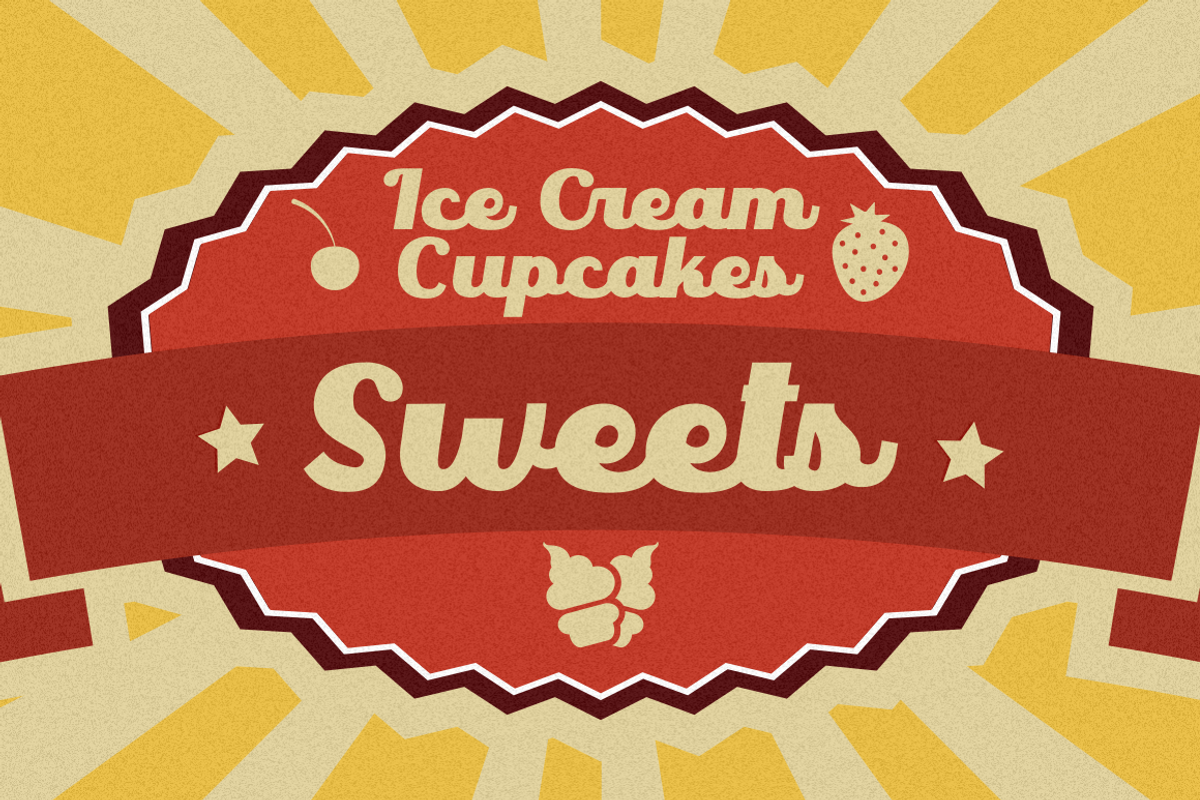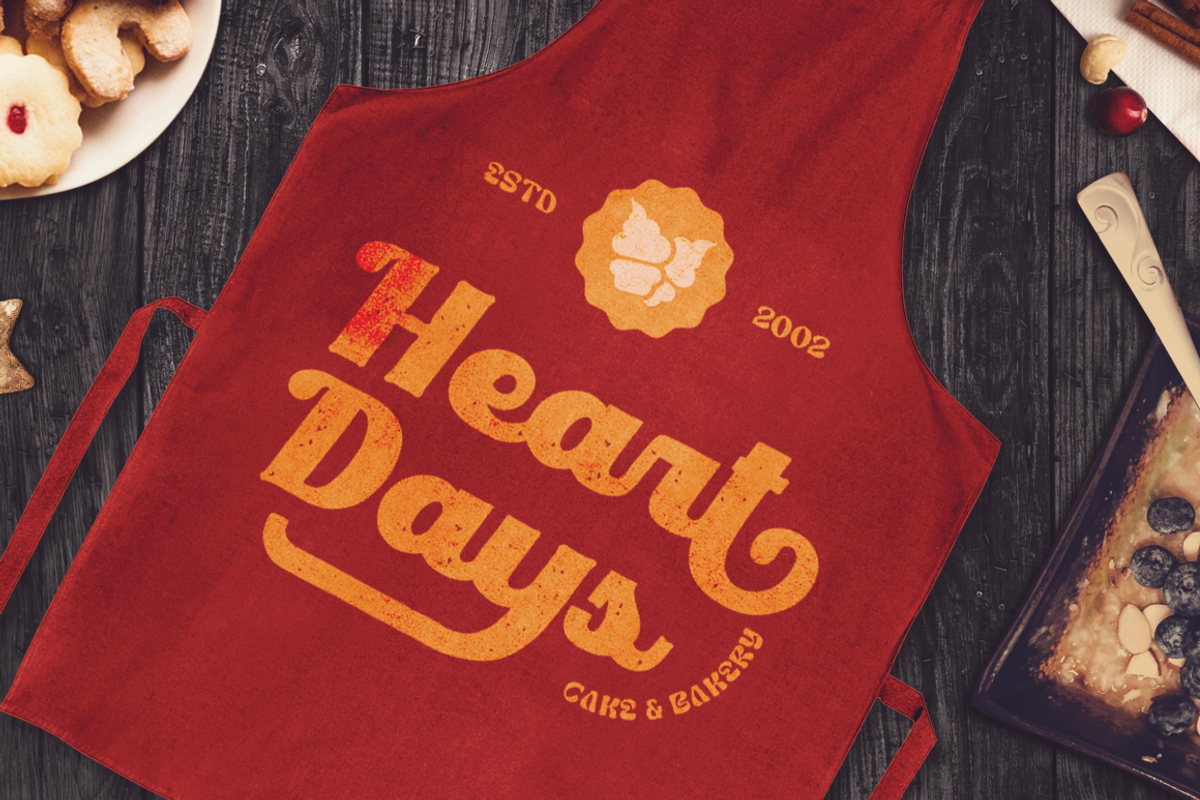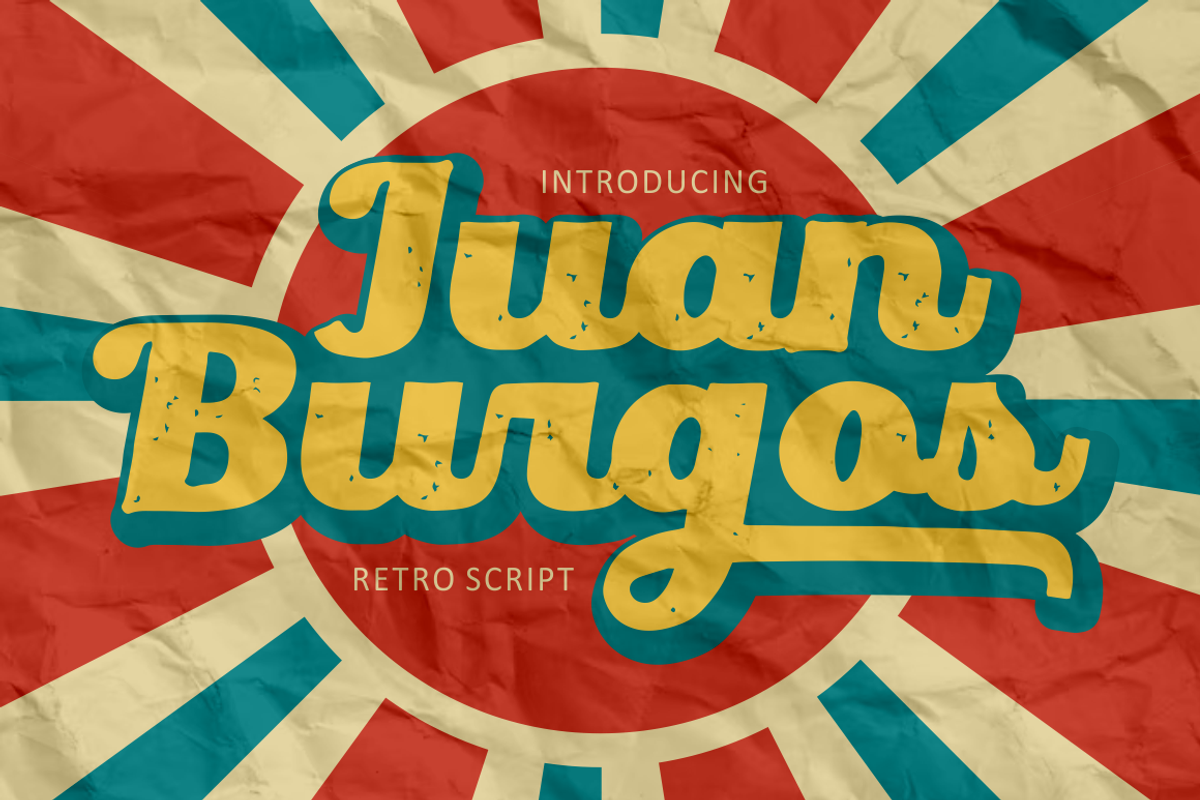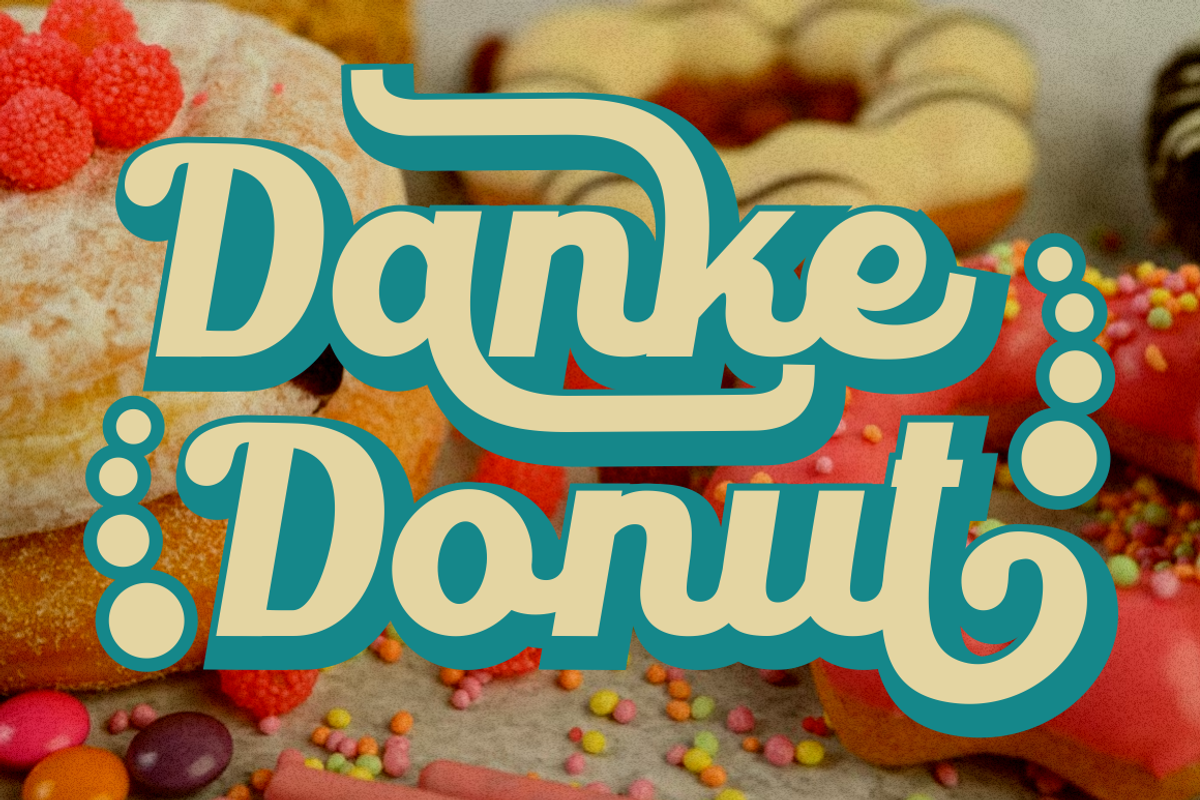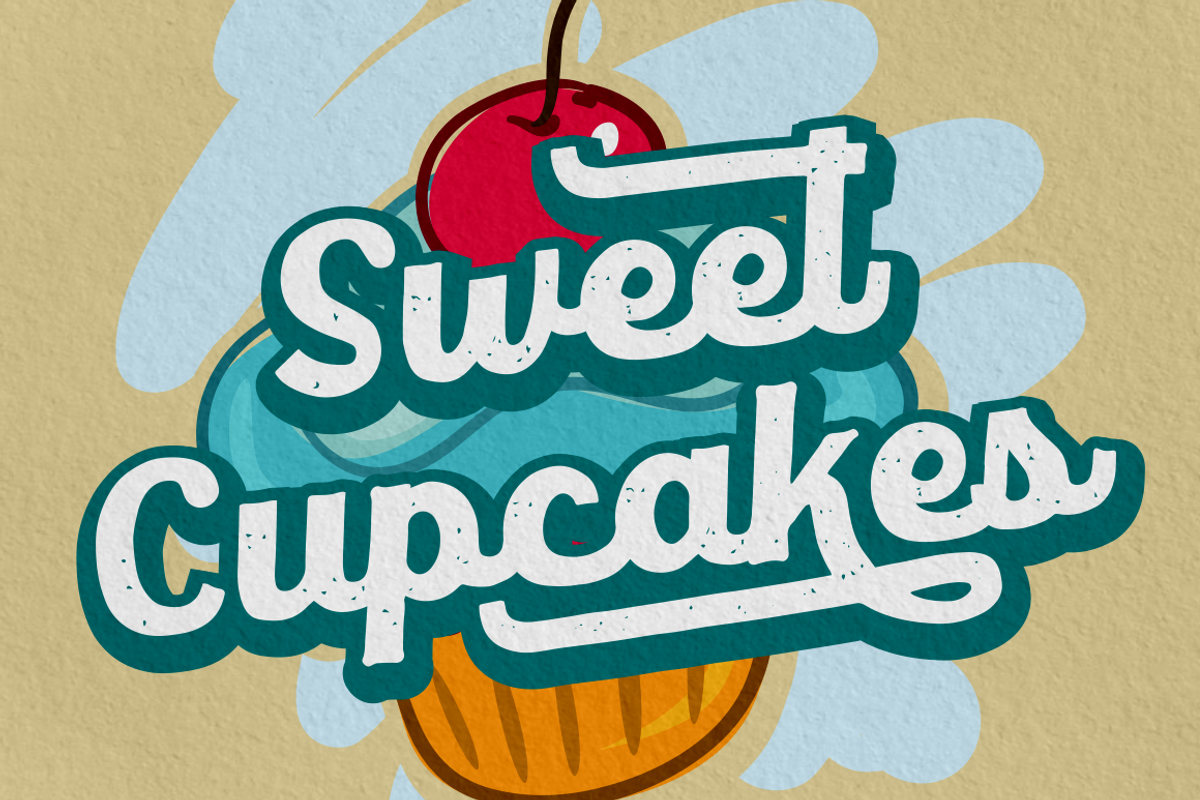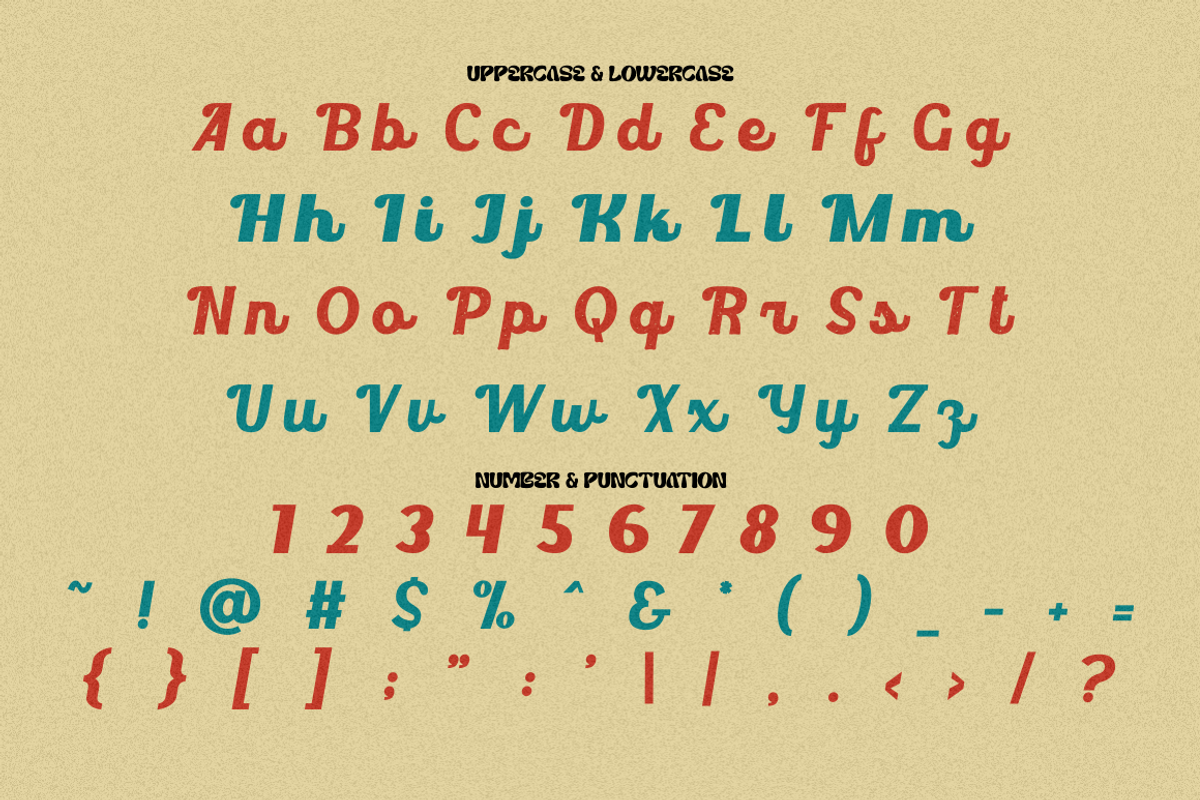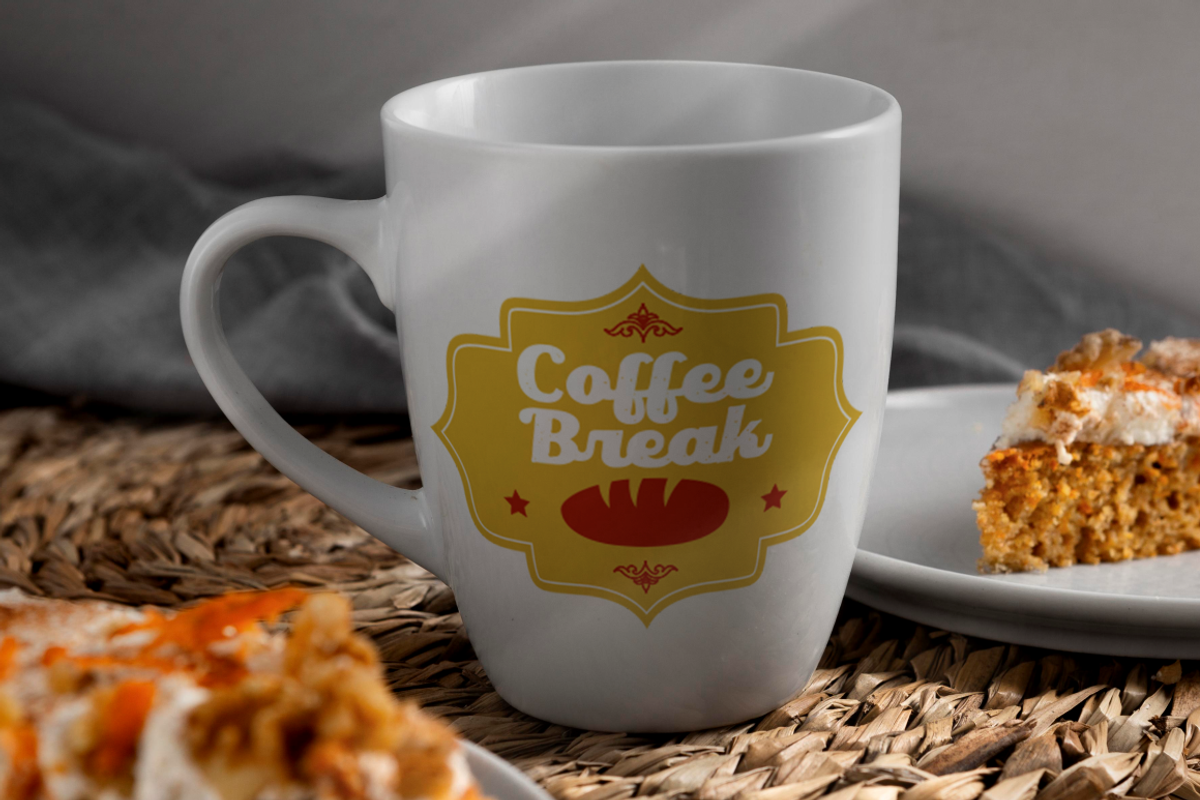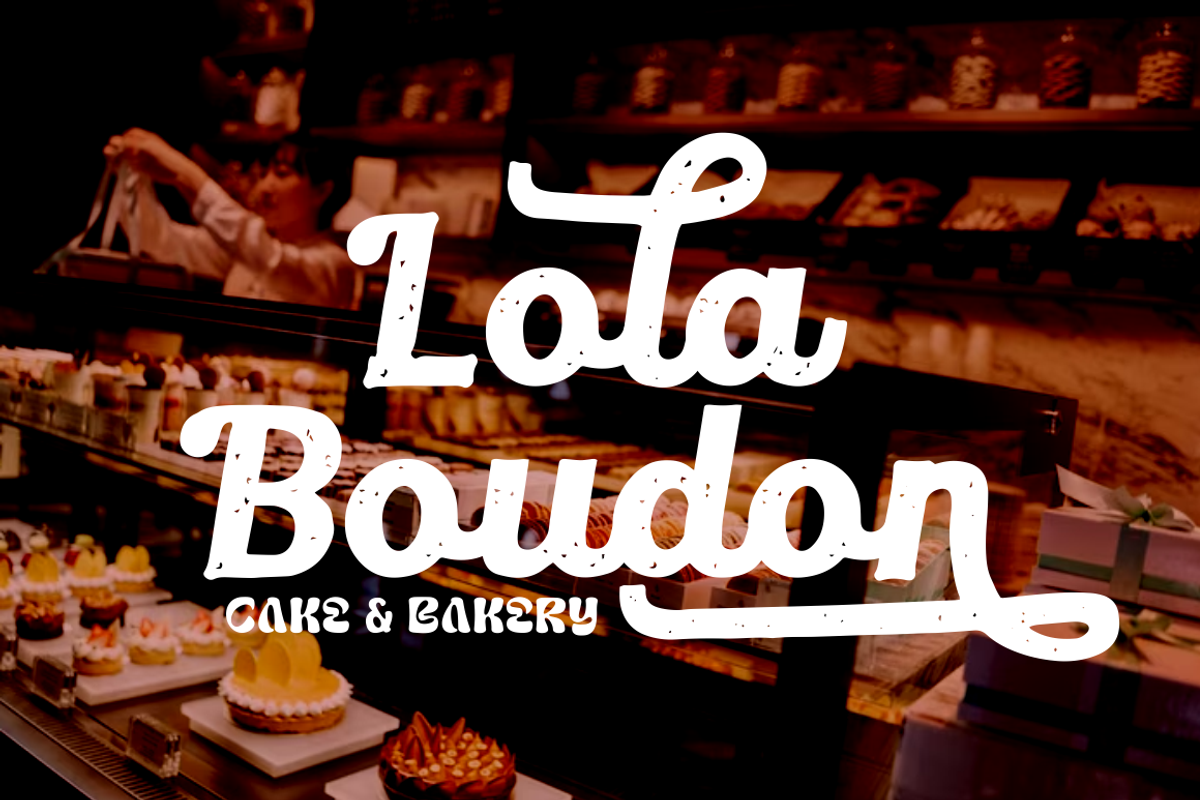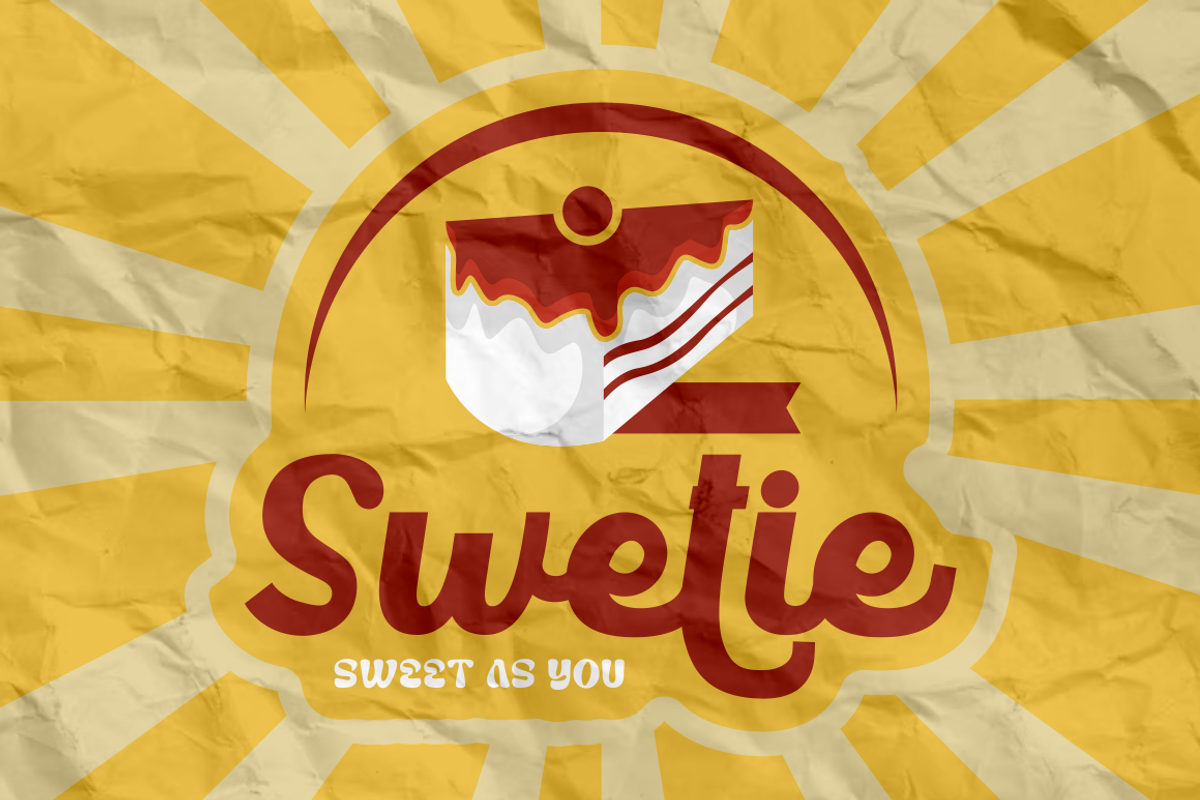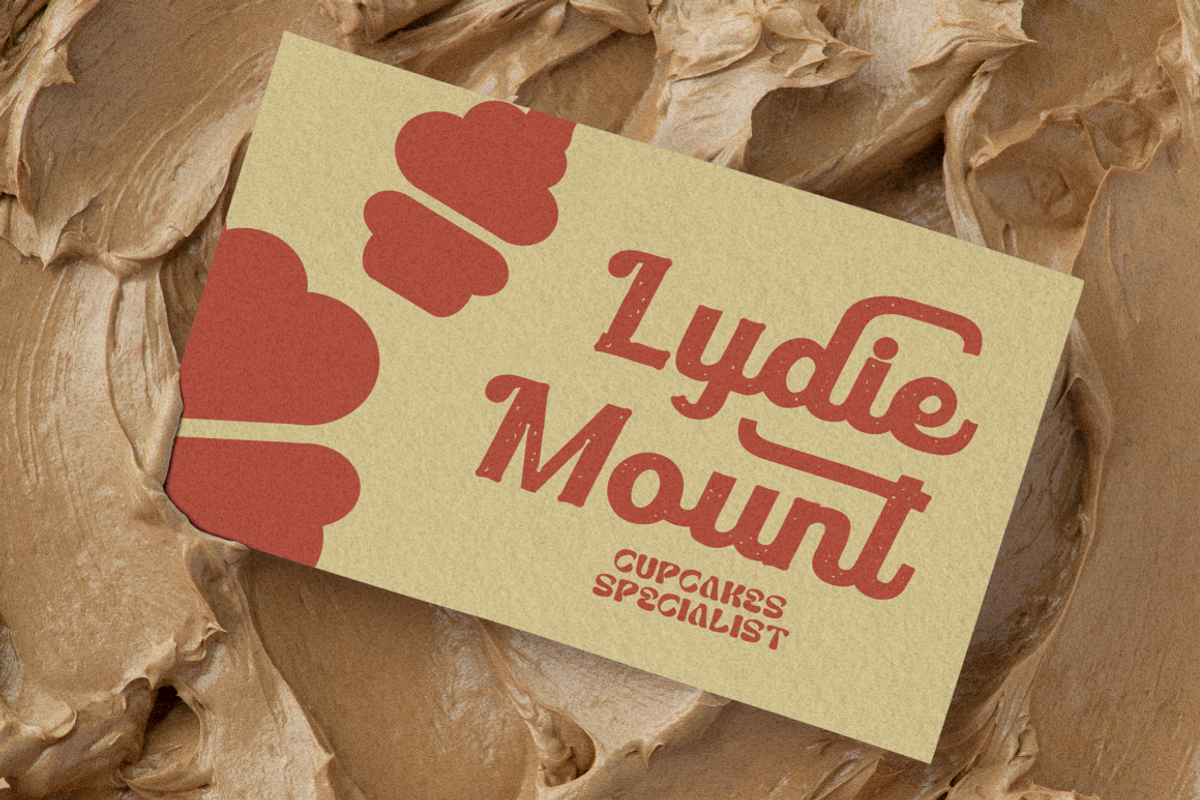
Juan Burgos - Bold Retro Script Font
Juan Burgos - The Bold Retro Script Font for Timeless Designs
Juan Burgos is your go-to font if you're seeking a perfect blend of retro charm and neat script aesthetics. This font exudes the elegance and allure of the past while maintaining a clean and appealing presentation.
What makes Juan Burgos stand out is its versatility. It offers two distinct variations: regular and rough, alongside alternative characters that provide endless creative possibilities. Whether you're designing a logo, creating a branding concept, crafting elegant invitations, assembling striking packaging, composing captivating posters, establishing eye-catching titles, or engaging in any design venture with a vintage retro theme, Juan Burgos is your ideal choice.
Unlock a world of possibilities and elevate your projects with the timeless appeal of Juan Burgos. This font bridges the past and the present to create captivating and memorable designs that stand the test of time.